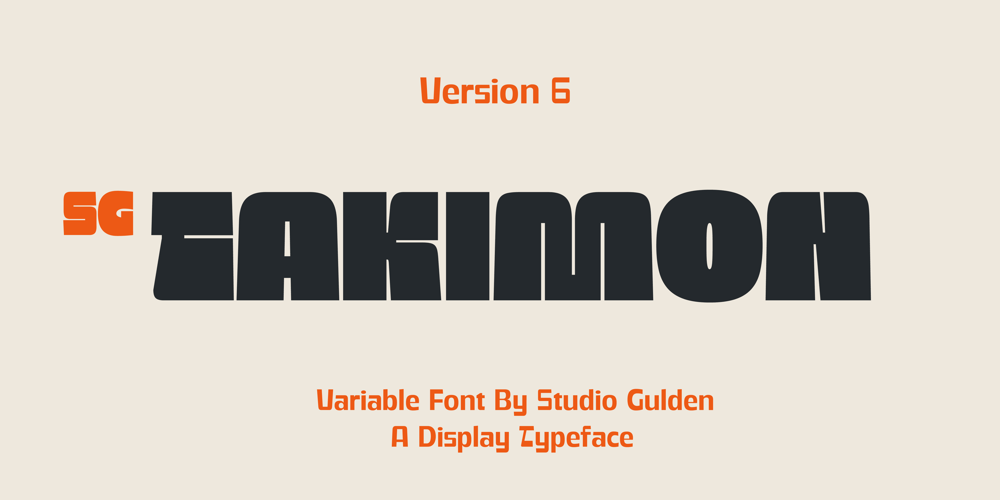
SG Takimon Font Family was designed by Umar Al Farouq, Jodi El Ghazi and published by Studio Gulden. SG Takimon contains 10 styles and family package options. SG – TAKIMON is a display typeface with variable weight. SG Takimon has uppercase and lowercase letters. It’s fun, pop, and playful!Stay pop and inspiring! Regards, Studio Gulden.